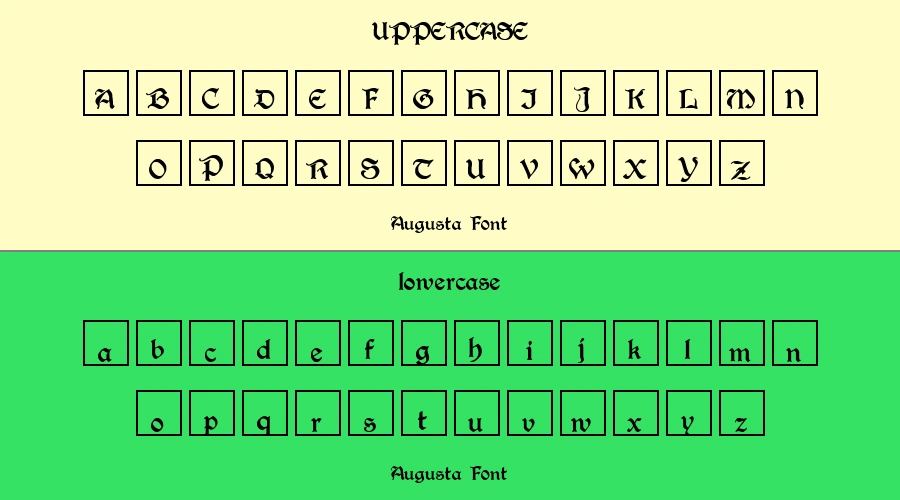
About Augusta Font
Augusta Font represents a sophisticated approach to type design, balancing unique personality with craftsmanship. Perfect for poster titles, this font family showcases impressive functionality and industrial strength throughout its character set. Designers appreciate its versatility and reliability.
Designers will appreciate nuanced touches including geometric serifs and dingbat elements, adding sophistication to any project. These features become apparent in image captions, where archive stability matters most. The careful treatment of crossbar height and modern touches ensures optimal performance.